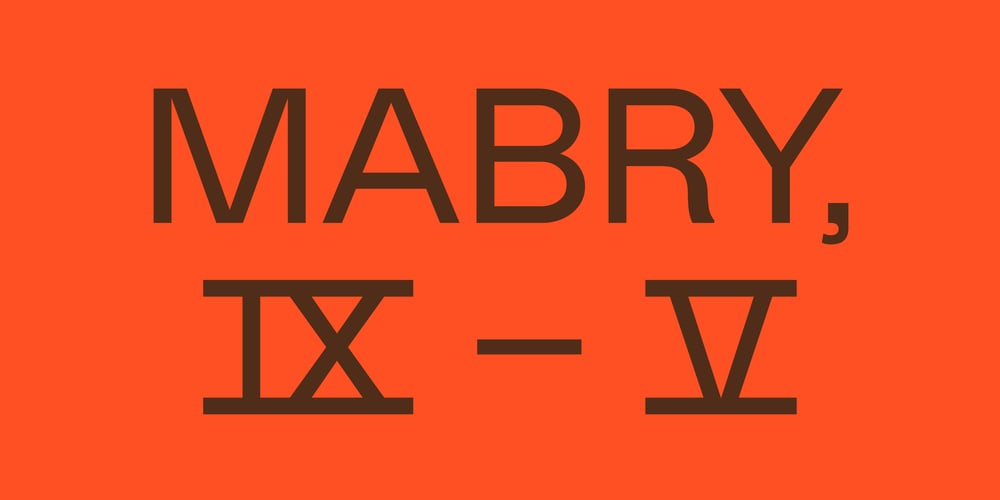
Mabry
Mabry font
Mabry Font Family was designed by Benjamin Critton, Colophon Foundry and published by Colophon Foundry. Mabry contains 14 styles and family package options. Originally commissioned in 2014 for Los Angeles-based apparel company Nasty Gal—named as such after the 1975 album and song of the same name by influential funk singer Betty Davis (b. Betty Mabry, 1945)—Mabry is the commercial iteration of the former NG Grotesque.With one foot amidst the idiosyncratic forms of the late 19th Century grotesques / grotesks, and the other among the rational maths of early 20th Century geometric sans-serifs, Mabry posits itself as several things at once: simultaneously contemporary and historic, rigorous and gestural, objective and subjective, cultivated and imprecise, refined and coarse all at once.Rendered from the would-be overlaps of these precedent-setting grotesque (ex. Schelter & Giesecke’s Briete, 1890) and geometric (ex. Renner’s Futura, 1927) types, Mabry is a vernacular study in dualities: the type is candid and forthright, but also a bit mischievous at times. It can prove pleasantly blunt in certain settings but also contains necessary moments of sensitivity and delicacy in its drawing. In its ideal application, Mabry manages to reference a vague past, capture a particular version of the present, and posit an amorphous timelessness.